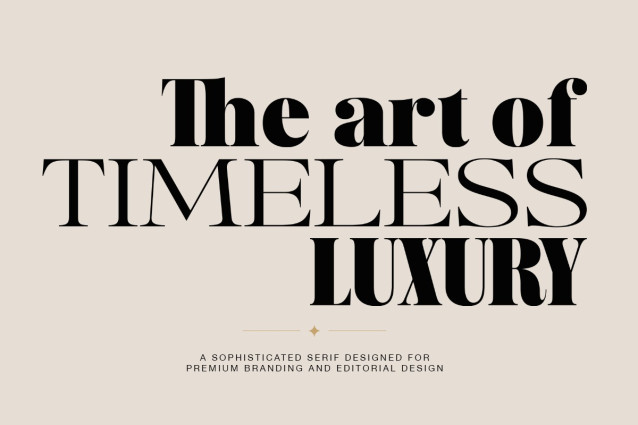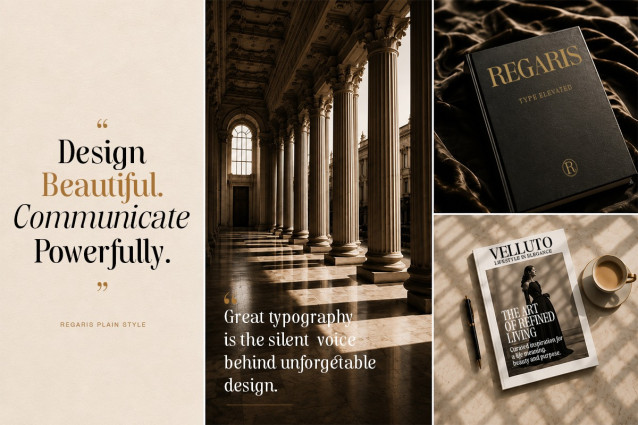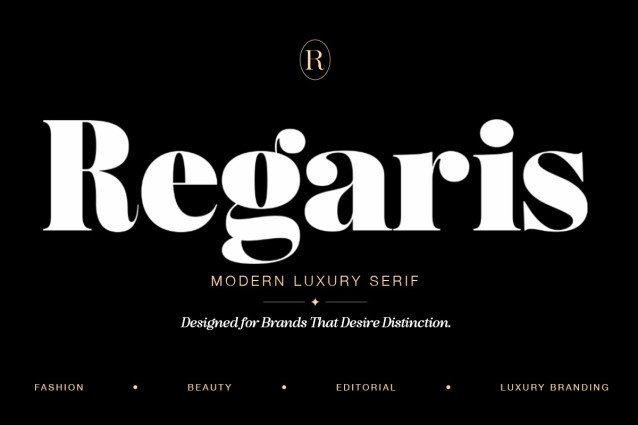
Regaris Thin Font
Regaris is a premium high-contrast serif superfamily created for designers who demand elegance, versatility, and uncompromising typographic performance. Inspired by the sophistication of luxury fashion, editorial publishing, and contemporary branding, Regaris blends timeless refinement with a powerful modern presence.
Designed as a complete type system, Regaris adapts effortlessly to every stage of the creative process—from expressive display headlines to sophisticated brand identities and editorial layouts. Every character has been carefully refined to achieve exceptional balance, sharp contrast, and outstanding readability across a wide range of applications.
The latest update expands Regaris into an extensive superfamily featuring 270+ font files and 3 Variable Fonts, giving designers unprecedented creative flexibility through multiple design axes, including Weight, Width, Plain + Italic, and Contrast.
Whether creating luxury logos, fashion campaigns, magazine covers, premium packaging, beauty branding, jewelry collections, boutique hotels, or corporate identities, Regaris provides a cohesive typographic system capable of handling projects of any scale.
This free version offers a glimpse into the Regaris design system, while the full commercial family expands into 270 fonts and 3 Variable Fonts, including Weight, Width, Plain & True Italic, and Contrast variations for maximum creative flexibility. The complete family also includes carefully crafted ligatures and extensive Latin Pro language support, making it suitable for professional branding and multilingual projects.
Perfect for:
Luxury Branding • Editorial Design • Fashion • Logo Design • Packaging • Invitations • Social Media • Premium Typography